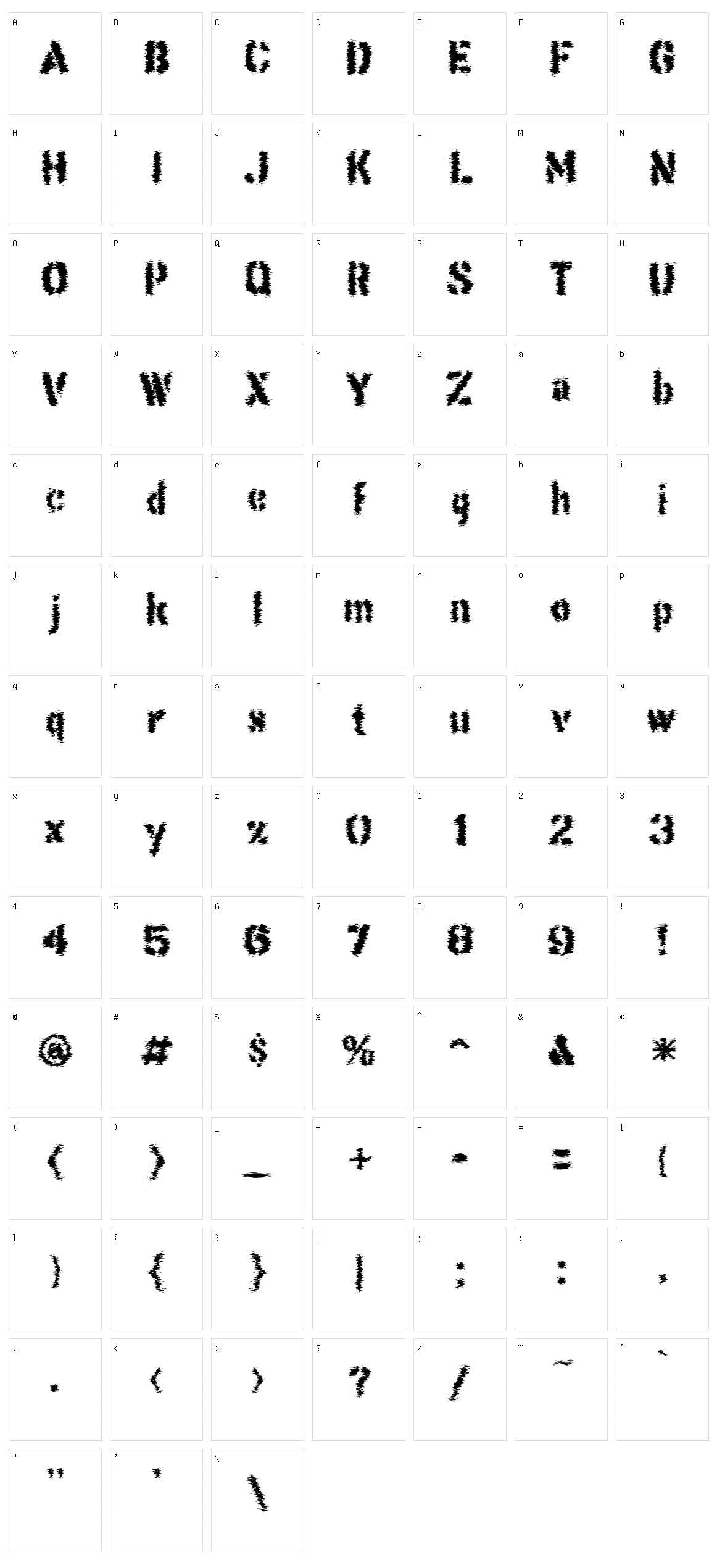
This Corrosion
Designed by: K-Type
Category: Destroy
Distressed stencil font that looks wildly windswept, erroneously eaten away, and misprinted on the fabric of malfeasance. Hey now, hey now now . . .